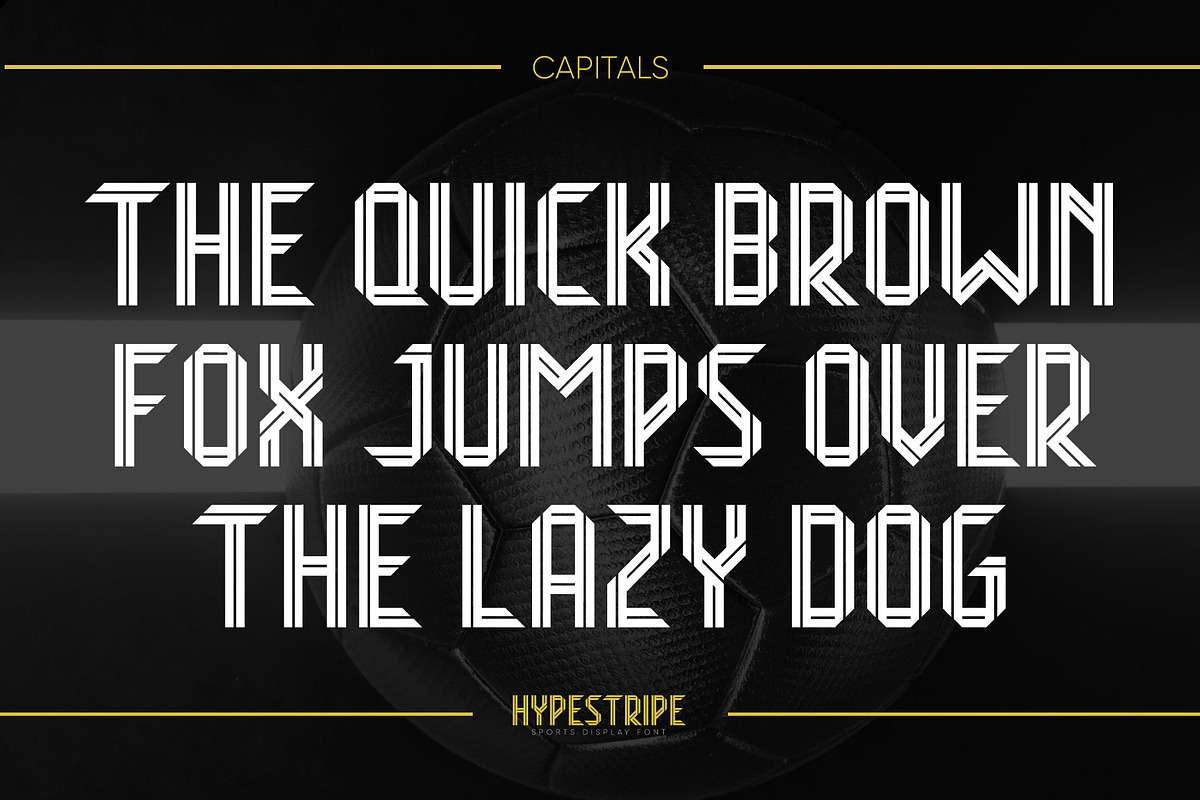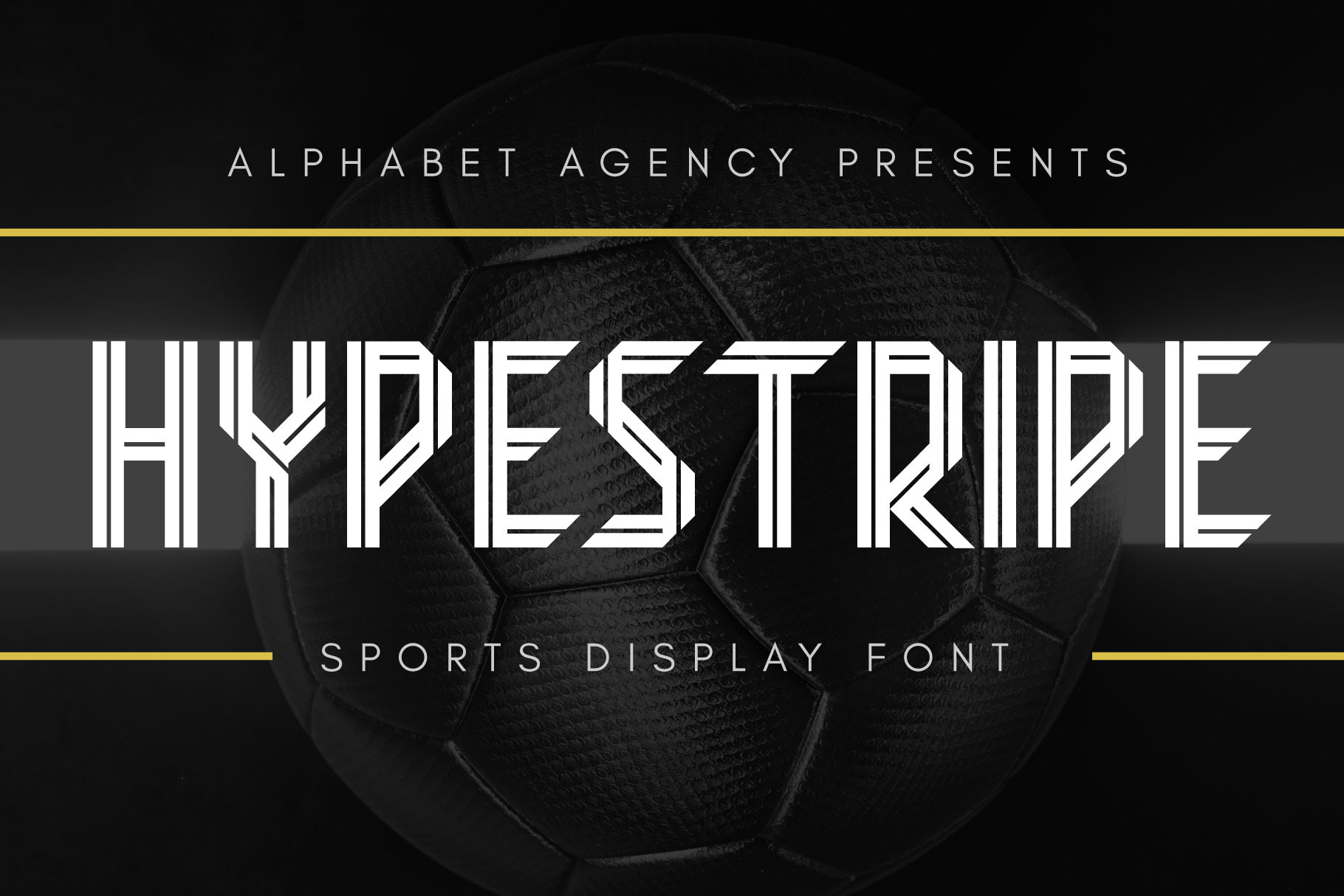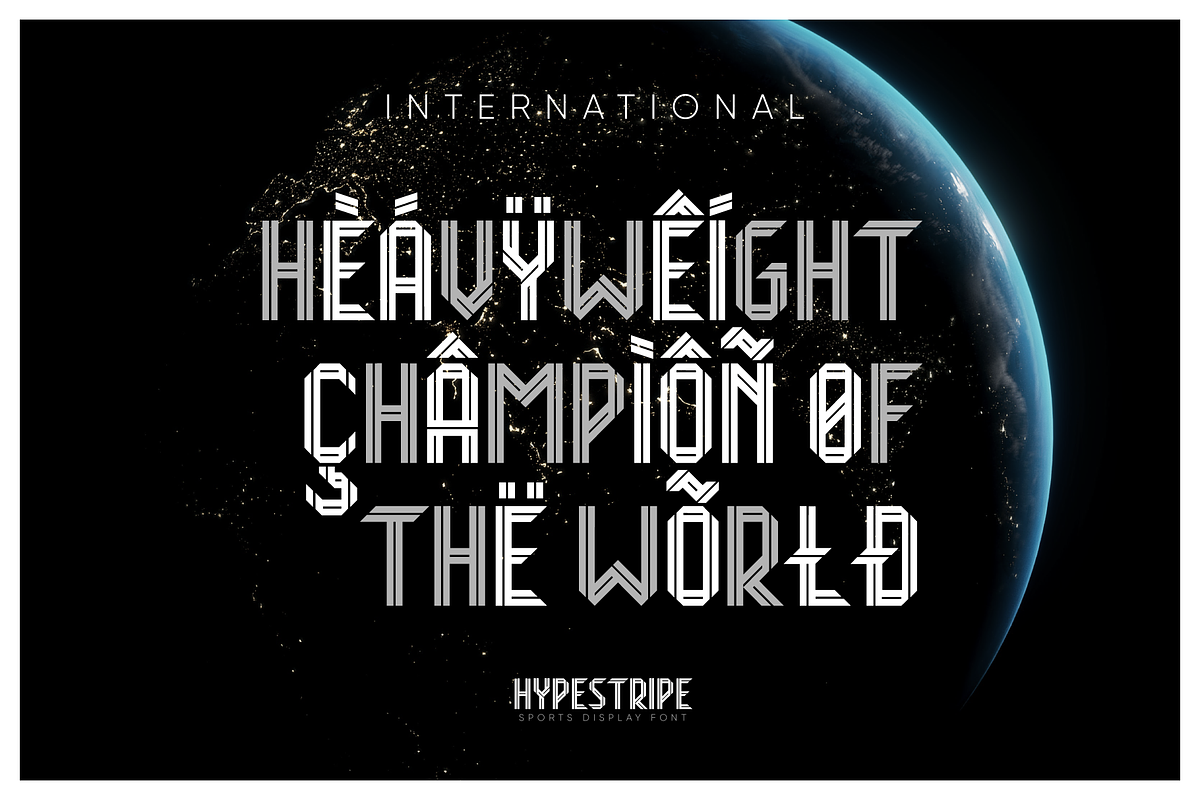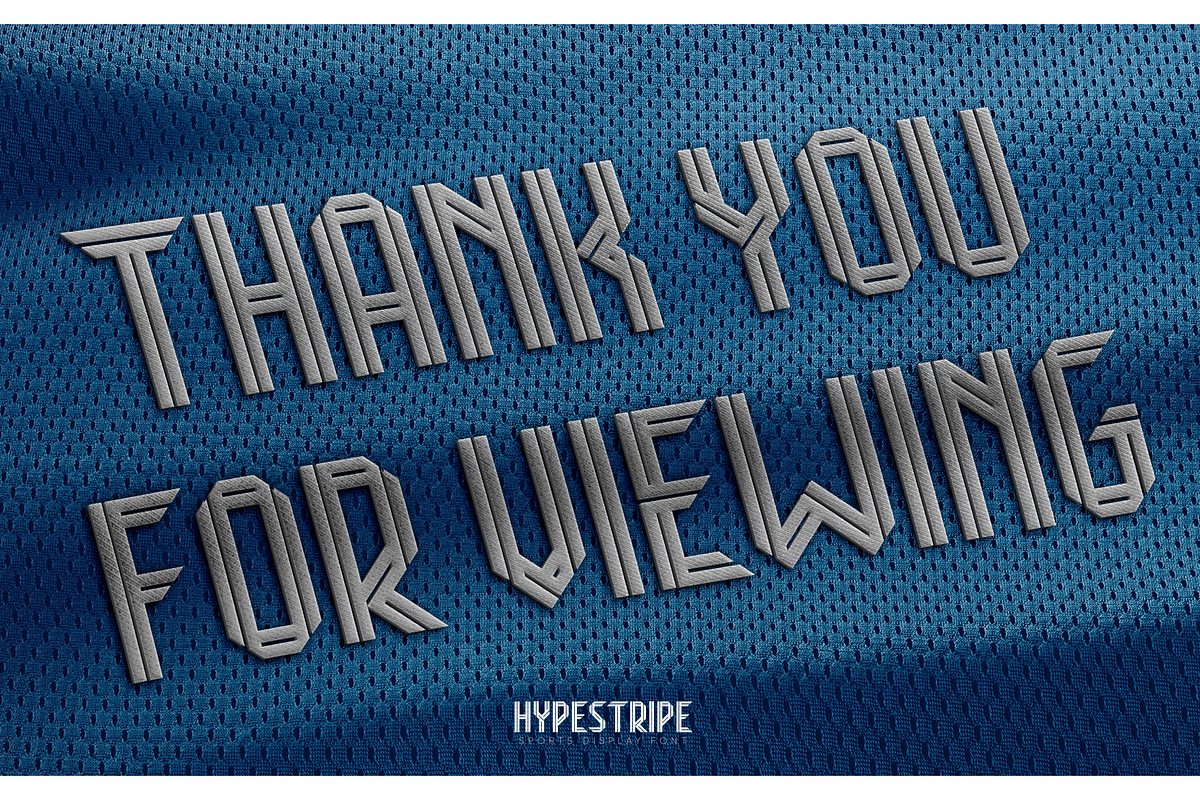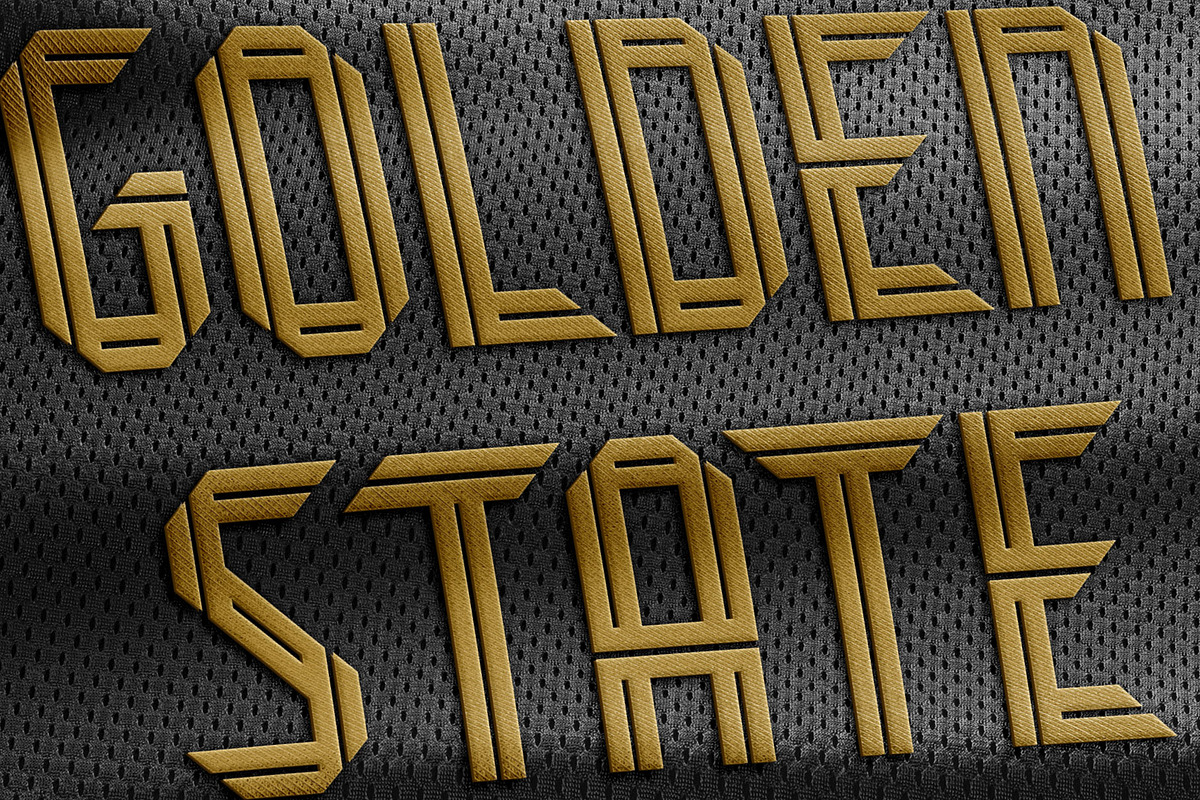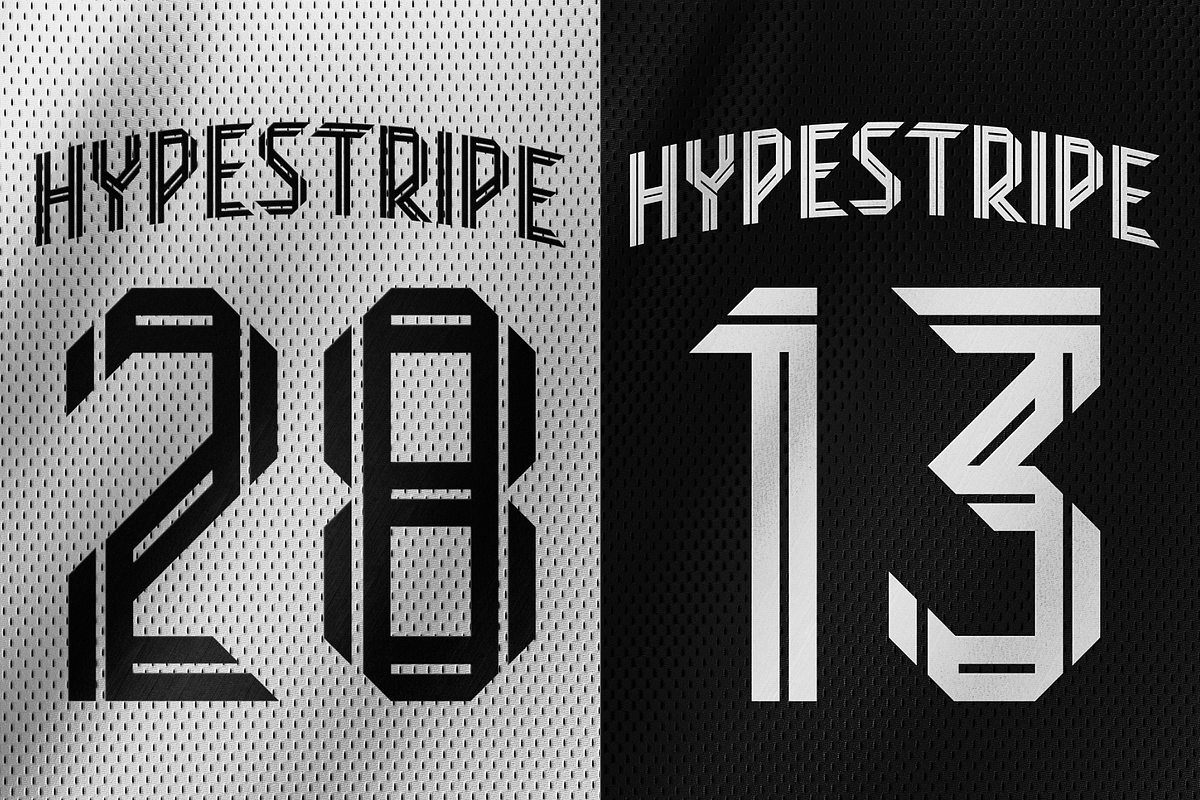
Hypestripe Sports Display Font
Hypestripe is a modern sans serif sports display font. The font uses a central stripe running through the stems of the font characters in a pattern that presents the illusion of folds in the characters. The sharp corners, 45 degree angles and sharp edges all work to give the font its unique look.
The font is an all capitals font that includes numbers, punctuation and Latin international characters.